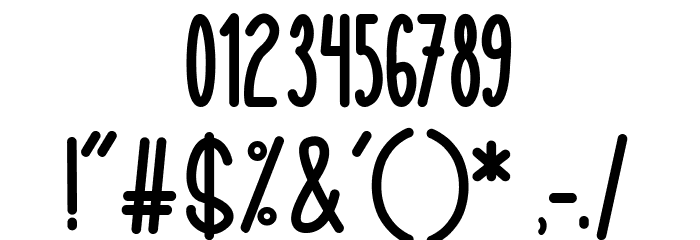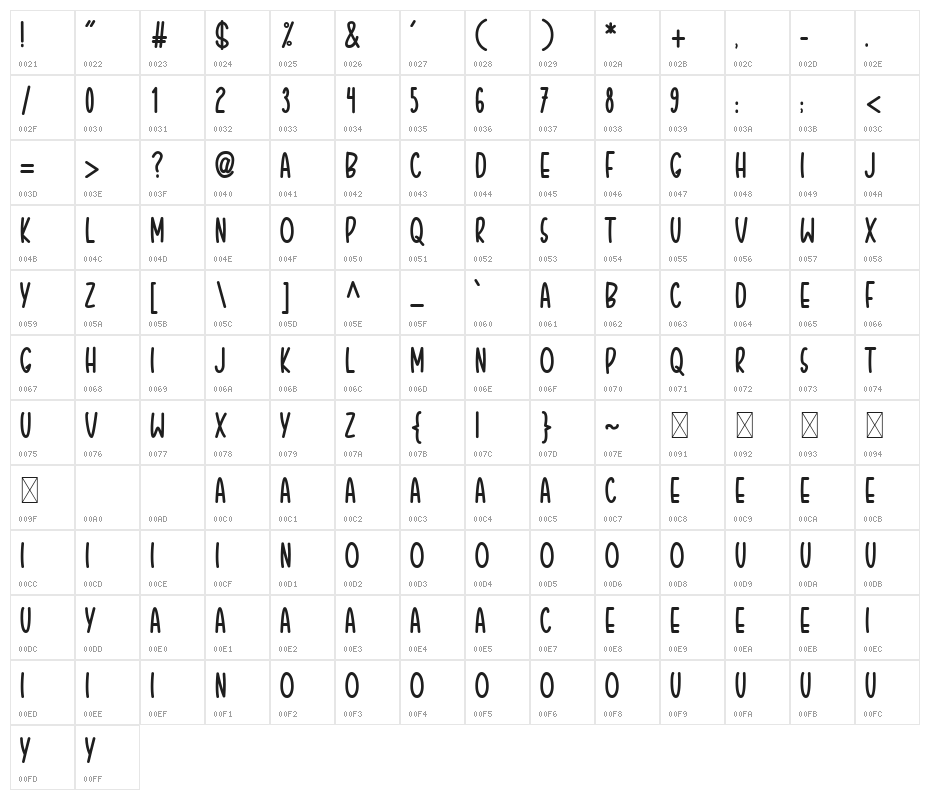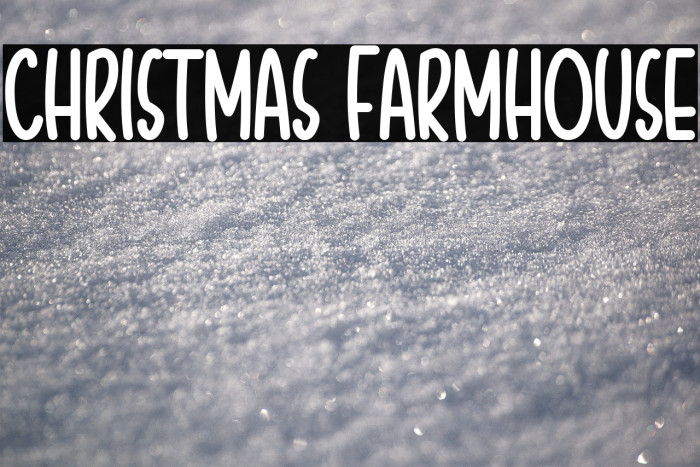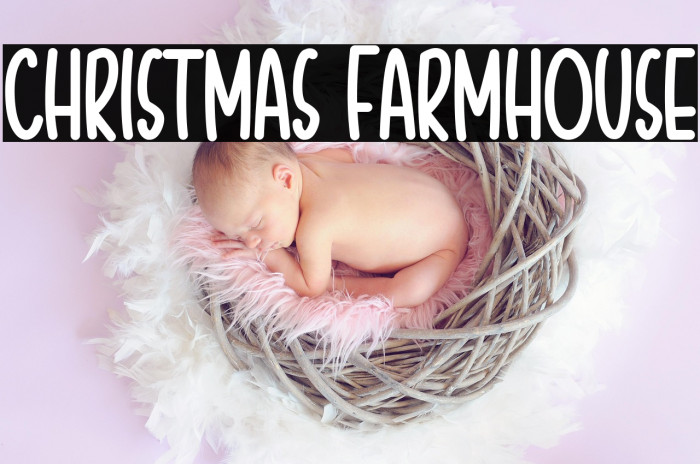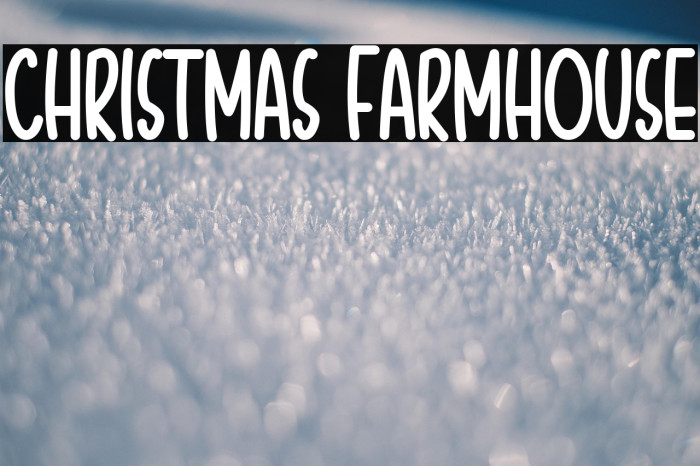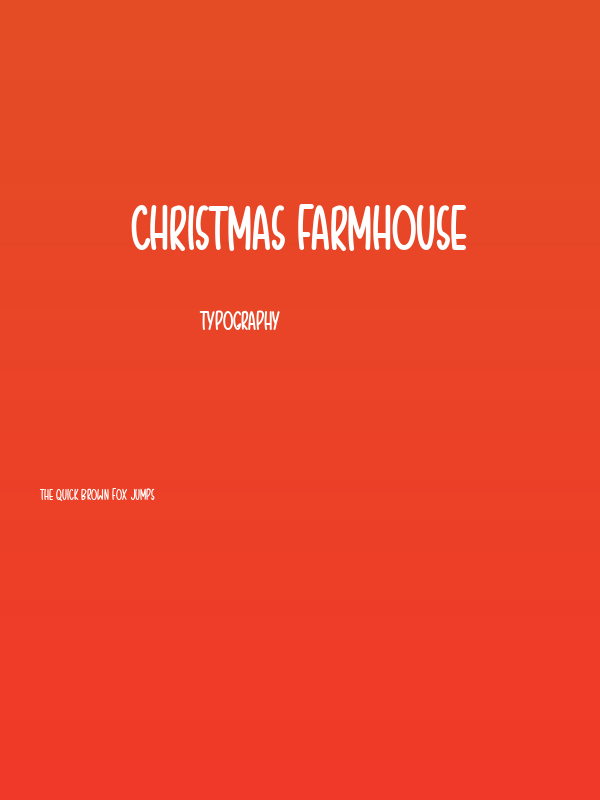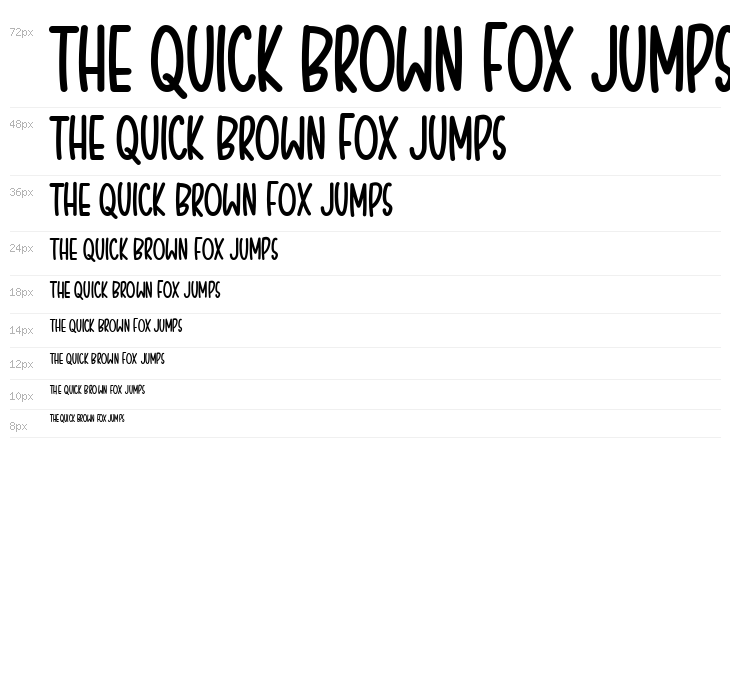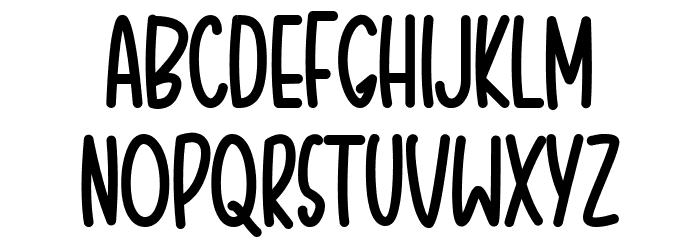
Christmas Farmhouse Font
Christmas Farmhouse Description
This font features a playful and casual handwritten style, characterized by its rounded edges and slightly uneven letterforms that give it a warm, inviting appearance. The uppercase and lowercase letters maintain a consistent height, contributing to a uniform look across text. The numerals and special characters are designed to match the whimsical style of the alphabet, making it suitable for creative and informal projects. The overall design is approachable and friendly, ideal for conveying a sense of fun and creativity.
Overall StyleCasual
Use CaseHeadlines, Logos, Invitations
Proposed ProjectsIdeal for holiday cards, children's books, playful branding, and DIY crafts.